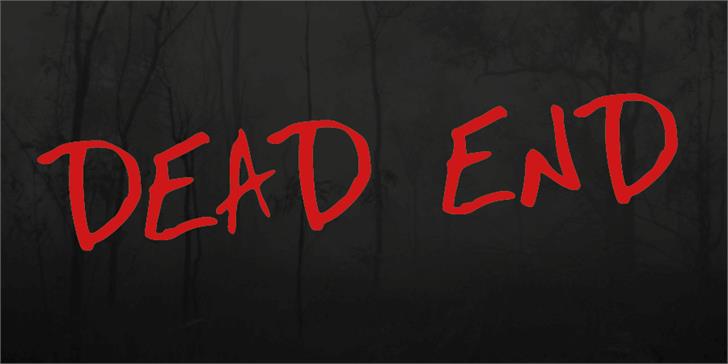
Unleashing the Horror: The Dead End Font and Graffiti Inspired Typography
In the realm of typography, fonts are often designed to evoke emotions, convey messages, and create a lasting impression. Among the numerous font styles, one that stands out for its eerie and captivating appeal is the Dead End Font. Inspired by graffiti and handwritten elements, this font style is reminiscent of horror movies and TV series like ‘Evil Dead’, ‘The Walking Dead’, and creepy pasta stories. In this article, we’ll dive into the world of Dead End Font, exploring its characteristics, uses, and the inspiration behind its graffiti and horror-themed design.
What is Dead End Font?
Dead End Font is a typeface that embodies the spirit of horror and graffiti. Its design is characterized by bold, rugged, and distressed letterforms, often with a handwritten or stencil-like feel. The font’s aesthetic is inspired by the gritty, urban landscapes often depicted in horror movies and TV shows. The Dead End Font is perfect for creating eye-catching titles, posters, and signage that evoke a sense of unease, fear, or foreboding.
Graffiti Twist: Adding an Edgy Touch
The graffiti inspiration in Dead End Font adds an edgy, rebellious touch to the typeface. Graffiti art, often associated with urban culture, brings a raw, unbridled energy to the font design. The bold lines, vibrant colors, and stylized lettering characteristic of graffiti art are skillfully incorporated into the Dead End Font, giving it a distinctive, attention-grabbing appearance.
The graffiti twist in Dead End Font is evident in its:
- Distressed texture: The font’s texture is rough and worn, as if it’s been scribbled on a wall or pavement.
- Bold lines: Thick, expressive lines define the letterforms, giving the font a dynamic, energetic feel.
- Stylized lettering: The font’s letterforms are often stylized, with unique flourishes and decorative elements that add to its graffiti-inspired aesthetic.
Horror Movie Influence: Paying Homage to the Classics
The Dead End Font’s design is also influenced by classic horror movies and TV series, such as ‘Evil Dead’ and ‘The Walking Dead’. The font’s bold, rugged appearance pays homage to the horror genre’s tradition of using distressed, worn typography to create a sense of tension and foreboding.
The horror movie influence in Dead End Font is evident in its:
- Bold, blood-red colors: The font’s color scheme often features bold, blood-red hues, evoking the visceral, frightening atmosphere of horror movies.
- Distressed texture: The font’s texture is often distressed, with rough, worn surfaces that recall the grimy, horror-themed environments of movies and TV shows.
- Frightening flourishes: The font’s letterforms often feature frightening flourishes, such as twisted, gnarled lines and jagged edges, adding to its horror-themed aesthetic.
Uses and Applications of Dead End Font
The Dead End Font is a versatile typeface with a range of applications, including:
- Horror movie and TV show posters: The font’s bold, attention-grabbing design makes it perfect for creating eye-catching posters and promotional materials for horror movies and TV shows.
- Graffiti art: The font’s graffiti-inspired design makes it suitable for use in graffiti art, urban installations, and street art projects.
- Typography design: The font’s unique aesthetic makes it a great choice for typography design projects, such as creating bold, statement-making headlines and titles.
The Creepy Pasta Connection
The Dead End Font’s design also resonates with the creepy pasta genre, a type of online storytelling that often features horror-themed narratives and images. The font’s bold, distressed appearance is reminiscent of the eerie, unsettling atmosphere often found in creepy pasta stories.
The creepy pasta connection in Dead End Font is evident in its:
- Eerie, unsettling atmosphere: The font’s design often evokes an eerie, unsettling atmosphere, perfect for creating creepy pasta-inspired content.
- Distressed texture: The font’s distressed texture adds to its creepy pasta aesthetic, recalling the rough, unpolished nature of online horror stories.
In conclusion, the Dead End Font is a unique typeface that embodies the spirit of horror, graffiti, and creepy pasta stories. Its bold, rugged design makes it perfect for creating eye-catching titles, posters, and signage that evoke a sense of unease, fear, or foreboding. Whether used in horror movie and TV show posters, graffiti art, or typography design projects, the Dead End Font is sure to leave a lasting impression.